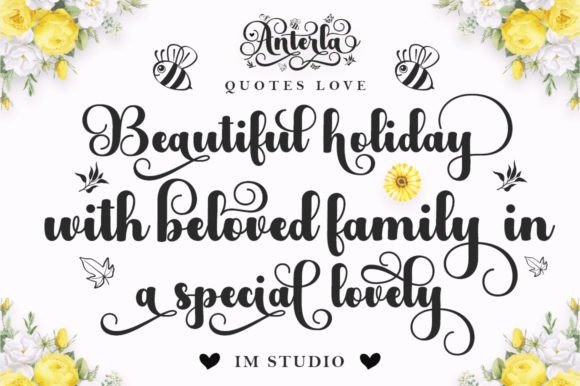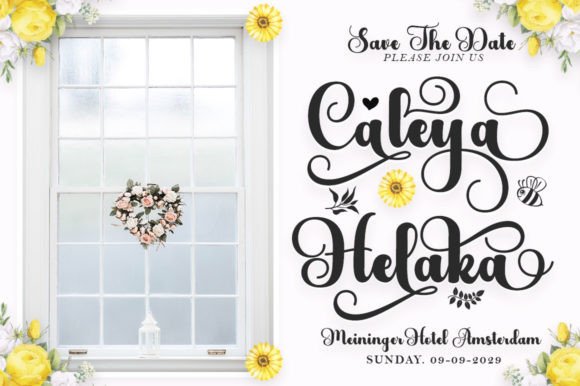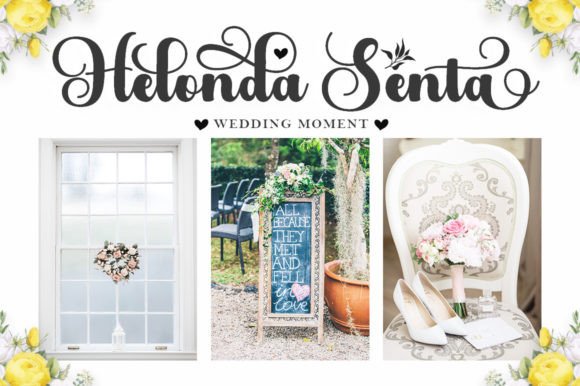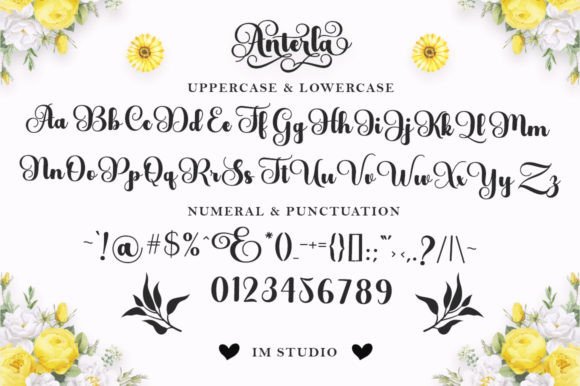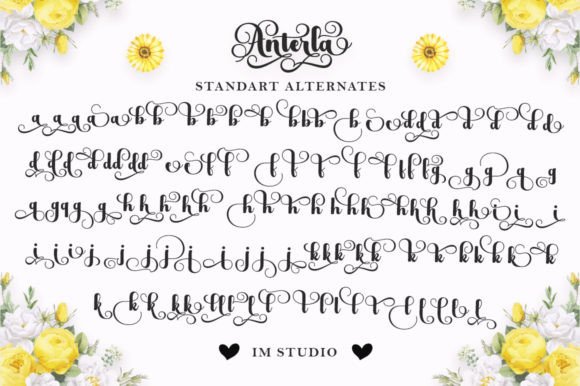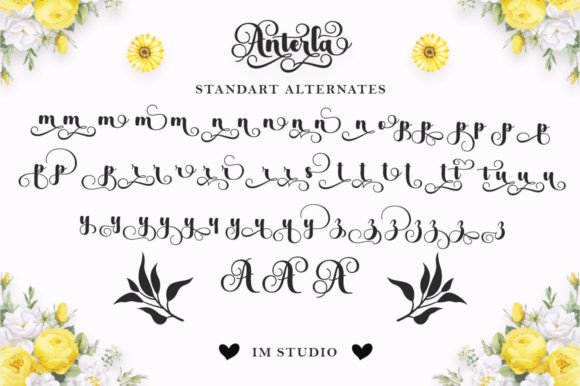
Introducing Anterla Font: The Ultimate Romantic Calligraphy Typeface
Are you a designer or crafter looking for a font that can add a touch of luxury and romance to your design projects? Look no further than Anterla Font, a beautiful and elegant calligraphy typeface that is sure to impress. With its unique and flowing characters that dance along the baseline, Anterla Font is the perfect choice for anyone looking to add a touch of sophistication and glamour to their work.
What Makes Anterla Font So Special?
Anterla Font is a romantic and sweet calligraphy typeface that is designed to make your design projects stand out. Its characters are carefully crafted to dance along the baseline, creating a sense of movement and fluidity that is sure to capture the attention of your audience. Whether you’re working on a wedding invitation, a branding project, or a packaging design, Anterla Font is the perfect choice for adding a touch of luxury and elegance.
Anterla Font is perfect for designers and crafters who want to add a touch of luxury and romance to their work. Whether you’re working on a commercial design project or a personal crafting project, this font is sure to impress. Its unique and elegant characters make it perfect for a wide range of design applications, including:
- Digital graphics and social media assets
Tips for Using Anterla Font
Here are a few tips for using Anterla Font in your design projects:
- Use it as a headline font to add a touch of luxury and elegance to your design
- Pair it with a simple sans-serif font for a beautiful contrast
- Use the glyphs and ligatures to add a personal touch to your design
In conclusion, Anterla Font is a beautiful and elegant calligraphy typeface that is perfect for designers and crafters who want to add a touch of luxury and romance to their work. With its unique and flowing characters, PUA encoding, and wide range of design applications, Anterla Font is sure to be a valuable addition to your font collection. So why wait? Download Anterla Font today and start creating stunning designs that will leave a lasting impression!
Key Features of Anterla Font
- Romantic and sweet calligraphy typeface
- Characters that dance along the baseline
- Perfect for wedding invitations, branding, packaging design, and more
- Wide range of design applications